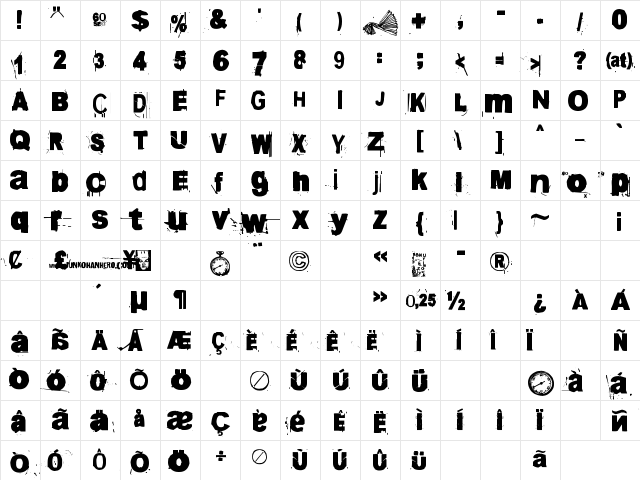
60sekuntia Regular Free Font
60sekuntia Regular
Designer: junkohanhero
Design Context for 60sekuntia
60sekuntia is a composed and adaptable typeface that performs quietly and consistently across a wide range of design contexts.